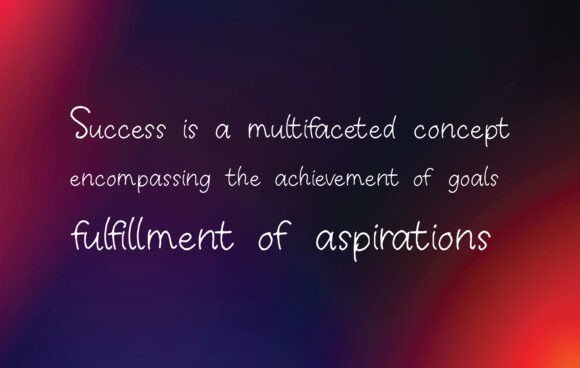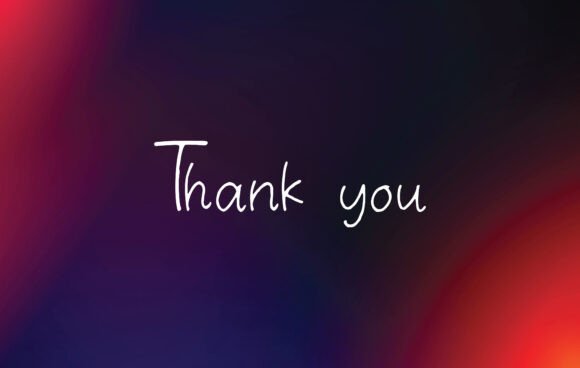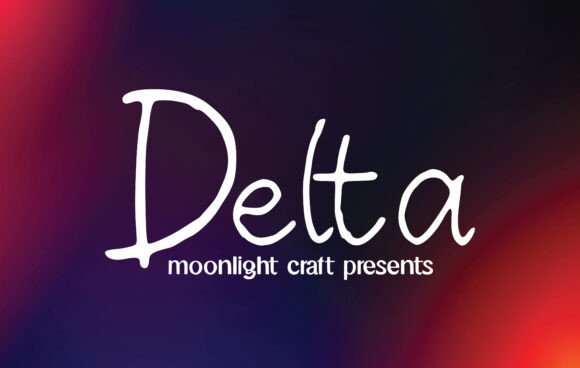
Introducing Delta Font: The Ultimate Design Companion
Are you tired of using the same old fonts that lack personality and style? Look no further than Delta Font, the versatile and eye-catching typeface that’s about to become your go-to favorite. This font is designed to bring your creative ideas to life, making it perfect for a wide range of design projects.
What Makes Delta Font So Special?
Delta Font is crafted to be clear and easy to read, making it an excellent choice for both titles and body text. Its unique design ensures that it stands out from the crowd, adding a touch of style and personality to any project. Whether you’re working on magazine covers, t-shirts, social media posts, branding, wedding invitations, or greeting cards, Delta Font fits right in.
Key Features of Delta Font
- Versatility: Delta Font is designed to be versatile, making it suitable for a wide range of design projects.
- Eye-catching: The font’s unique design ensures that it grabs attention and adds a touch of style to any project.
- Clear and Easy to Read: Delta Font is crafted to be clear and easy to read, making it perfect for both titles and body text.
- Style and Personality: The font adds a touch of style and personality to any project, making it perfect for designers and crafters who want to make a statement.
Use Cases for Delta Font
Delta Font is perfect for a wide range of design projects, including:
- Magazine Covers: Create eye-catching magazine covers that grab attention and draw readers in.
- T-Shirts: Design stylish and comfortable t-shirts that make a statement.
- Social Media Posts: Create engaging social media posts that stand out from the crowd.
- Branding: Develop a strong brand identity with Delta Font’s unique and stylish design.
- Wedding Invitations: Create beautiful and elegant wedding invitations that set the tone for the big day.
- Greeting Cards: Design personalized and stylish greeting cards for any occasion.
Why Choose Delta Font?
With so many fonts to choose from, why should you choose Delta Font? Here are just a few reasons:
- Unique Design: Delta Font has a unique design that sets it apart from other fonts.
- Versatility: The font is versatile and can be used for a wide range of design projects.
- Easy to Read: Delta Font is clear and easy to read, making it perfect for both titles and body text.
- Style and Personality: The font adds a touch of style and personality to any project.
Tips for Using Delta Font
Here are a few tips for getting the most out of Delta Font:
- Experiment with Different Sizes: Try using Delta Font in different sizes to create visual interest and hierarchy.
- Play with Colors: Experiment with different colors to add depth and personality to your design.
- Mix and Match: Try pairing Delta Font with other fonts to create a unique and stylish design.
Delta Font is the ultimate design companion for designers and crafters who want to add a touch of style and personality to their projects. With its unique design, versatility, and ease of use, it’s the perfect choice for a wide range of design projects. Whether you’re working on magazine covers, t-shirts, social media posts, branding, wedding invitations, or greeting cards, Delta Font is the perfect font for you.